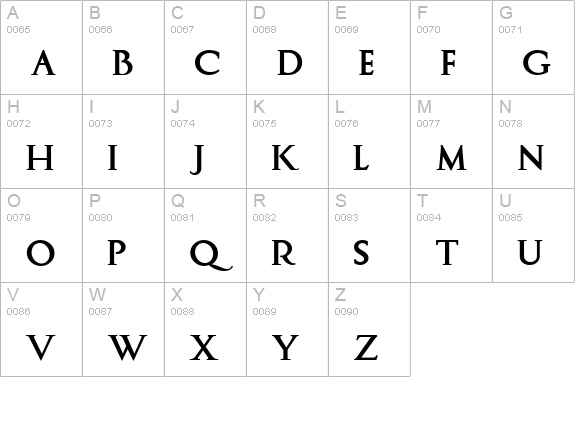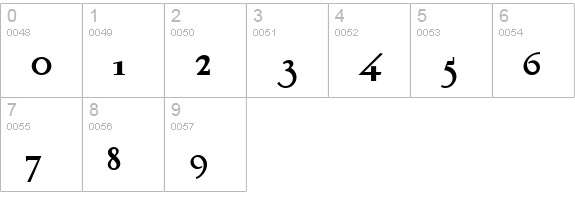
Mrs Bathhurst Nf Semi Bold is a strong, high-contrast variant in the Mrs typeface family \xE2\x80\x94 well suited to headlines, attention-grabbing titles, and strong calls-to-action.
Mrs Bathhurst Nf Semi Bold font is a modern and stylish typeface that exudes sophistication and elegance. Its bold strokes and clean lines make it perfect for a variety of design projects, from branding to advertising to social media graphics. The semi-bold weight adds a touch of gravitas and presence to any text, making it stand out with authority. What's even better is that Mrs Bathhurst Nf Semi Bold font is absolutely free to download at FontsMarket.com. You can add this versatile and eye-catching font to your collection without breaking the bank. Whether you're working on a personal project or a professional client job, this font will elevate your design to the next level. Don't miss out on the opportunity to enhance your typography with Mrs Bathhurst Nf Semi Bold font. Download it for free today and start creating beautiful and impactful designs.